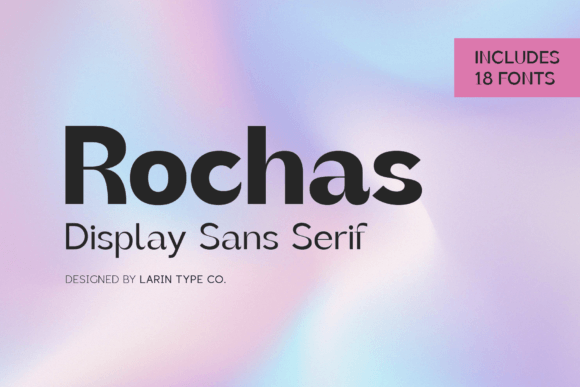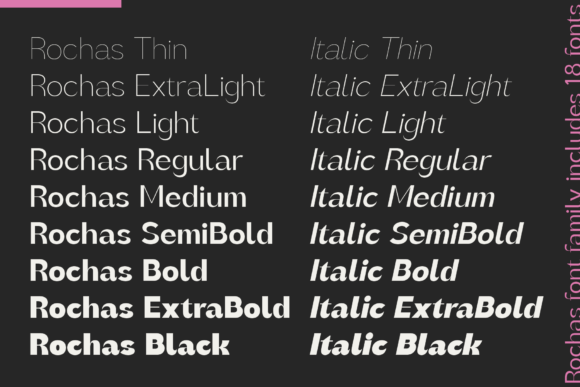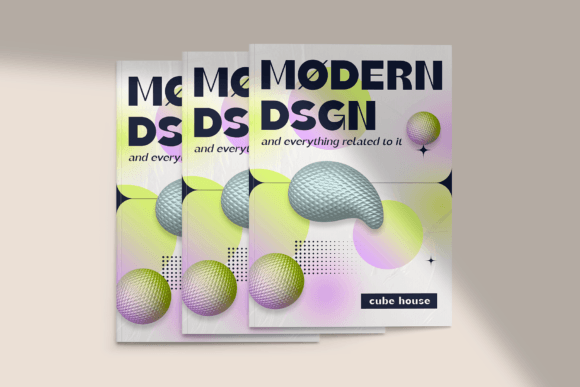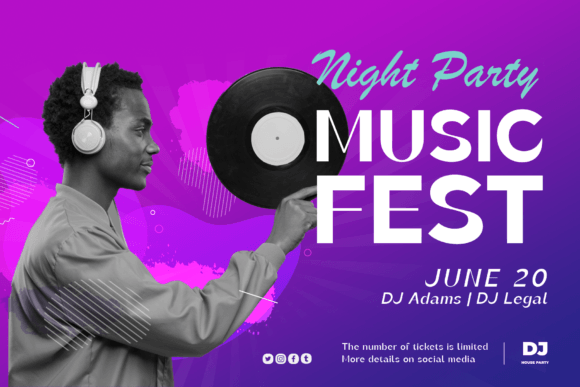
Rochas Font
About the Rochas Font
Step up your design game with Rochas Font, a font that exudes confidence and style. Rochas is a sans-serif display font family with a bright and defiant appearance due to its unusual contrast. It includes 9 weight and italics to them from thin to black. It is versatile and suitable for a wide range of applications. With it, you can create logos, labels, use in advertising, packaging, branding, book and magazine covers, cosmetics, banners, posters, headlines, descriptions and much more.
Rochas excels as a headline font, bringing a bold and rebellious energy to posters, branding projects, and packaging design for products targeting a younger, fashion-conscious demographic. Its strong contrast makes it ideal for short impactful statements, but less so for extended body copy or UI elements where readability is paramount. Avoid using it for lengthy paragraphs or small sizes.
Pairing Rochas effectively requires considering its strong personality. A classic serif like Garamond or a clean, geometric sans-serif like Futura provides a sophisticated counterpoint, tempering its rebelliousness. For a more playful approach, consider pairing it with a rounded sans-serif like Lato.
Rochas’ core personality is undeniably bold and defiant, yet retains a modern edge. It’s best suited for brands that project confidence and a sense of unapologetic style.